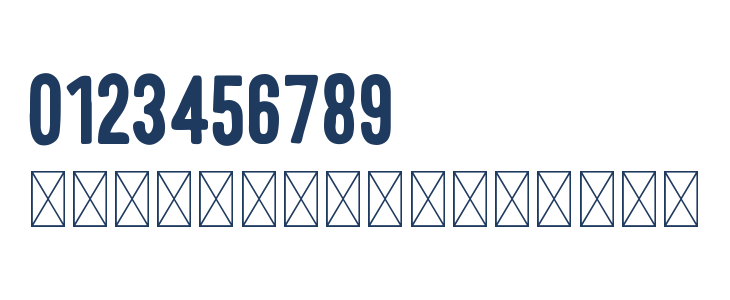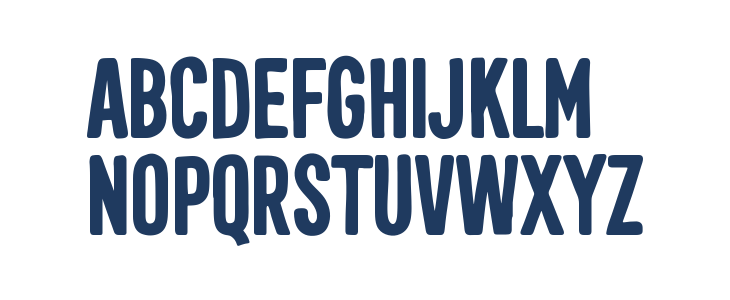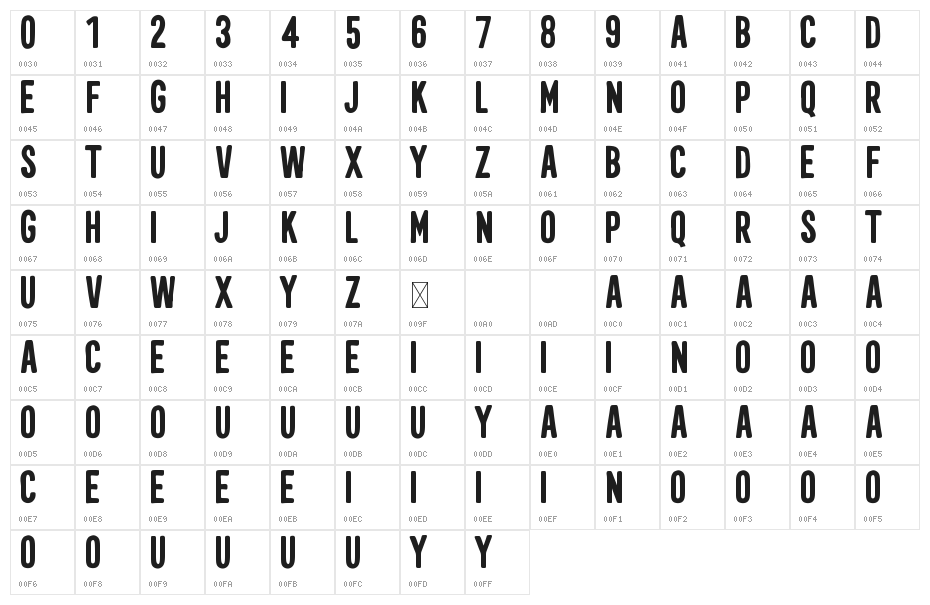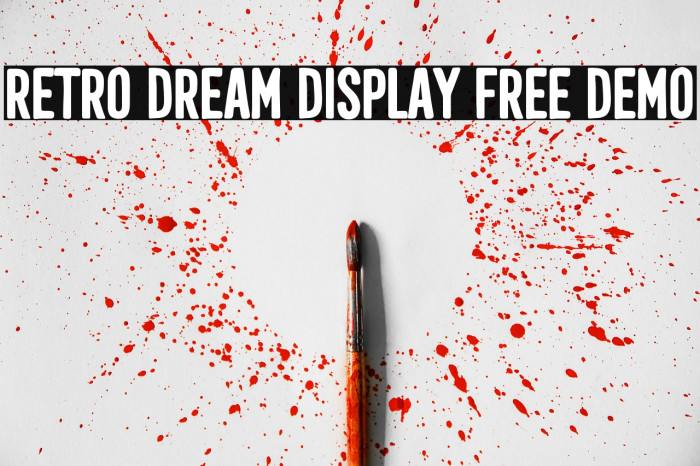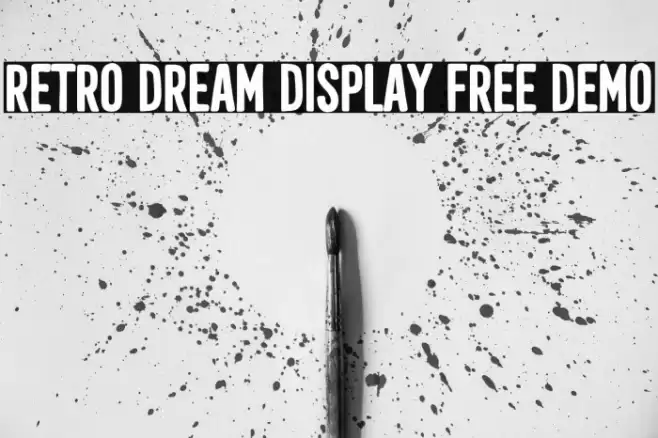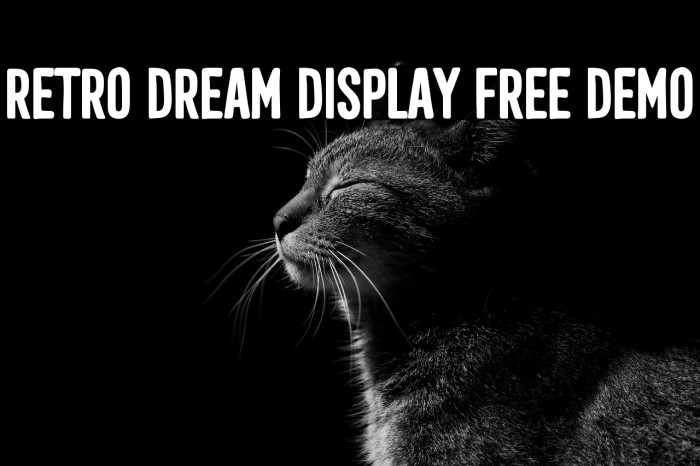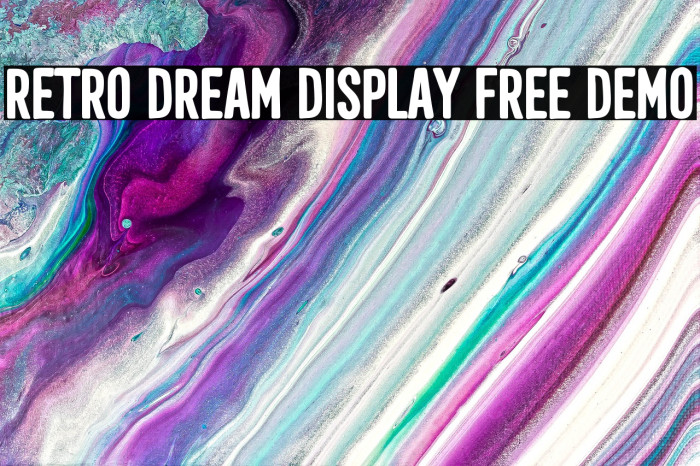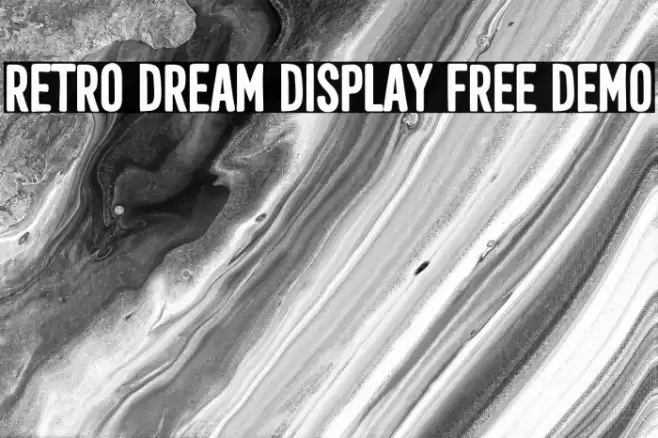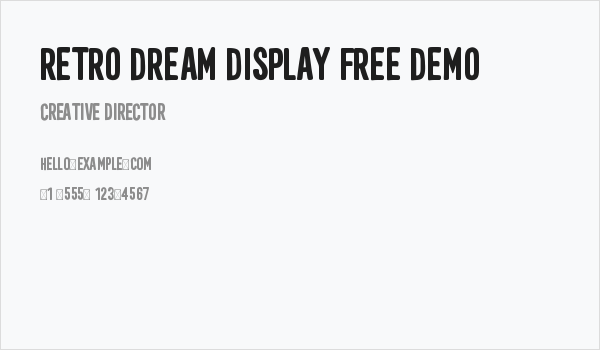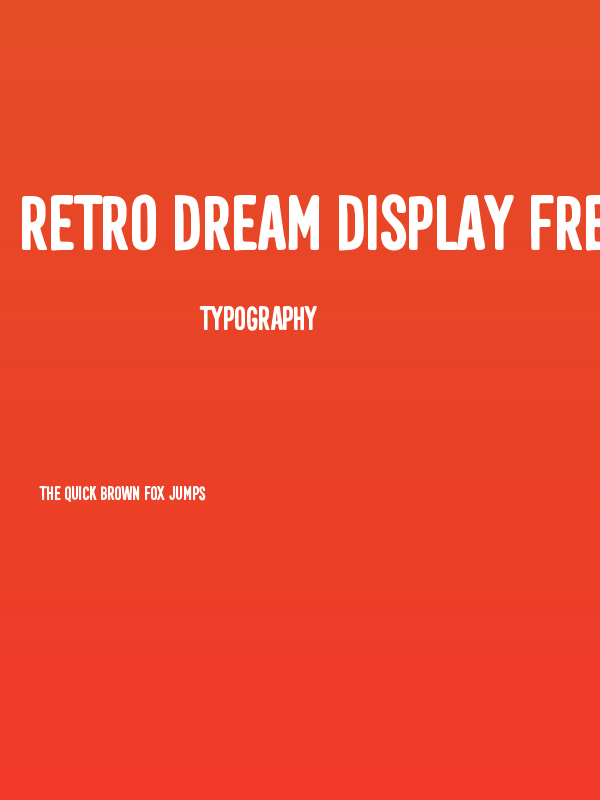
Retro Dream Display Free Demo Font
A bold, rounded sans-serif display typeface with tall, condensed letterforms and playful, retro-inspired curves. The strokes are thick and uniform, giving a strong visual impact while maintaining legibility. The overall style evokes a vintage, nostalgic feel reminiscent of mid-20th-century signage.
| Width | Condensed |
| Overall Style | Retro, Decorative, Playful |
| Use Case | Headlines, Logos, Posters, Display text |
| Proposed Projects | Posters, retro branding, event flyers, signage, album covers, social media graphics. |